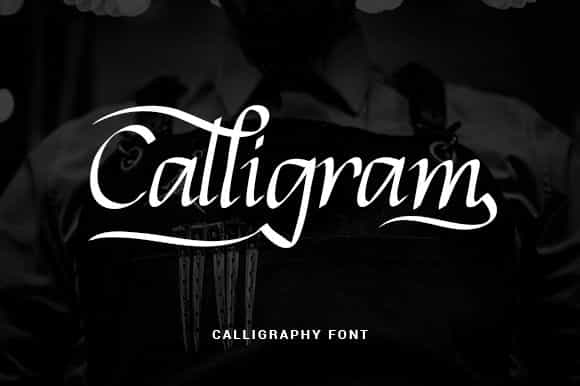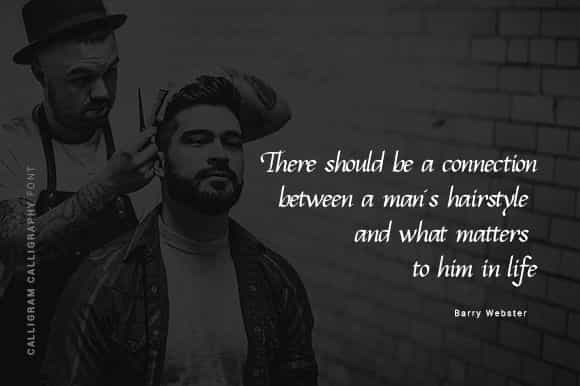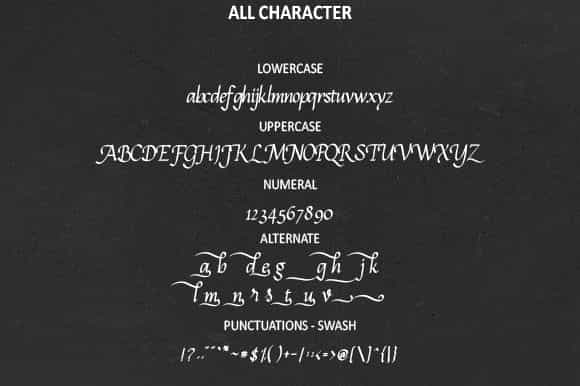
The Calligram is a unique stylish calligraphy font. It’s perfect for adding a personal charm to your photography, watermark start-up business, web design, card design, label and invitation design, clothing design, special events; logotype, branding design, crafting, a concept for the advertising industry, social media post, and everything that need calligraphy or handwriting taste.